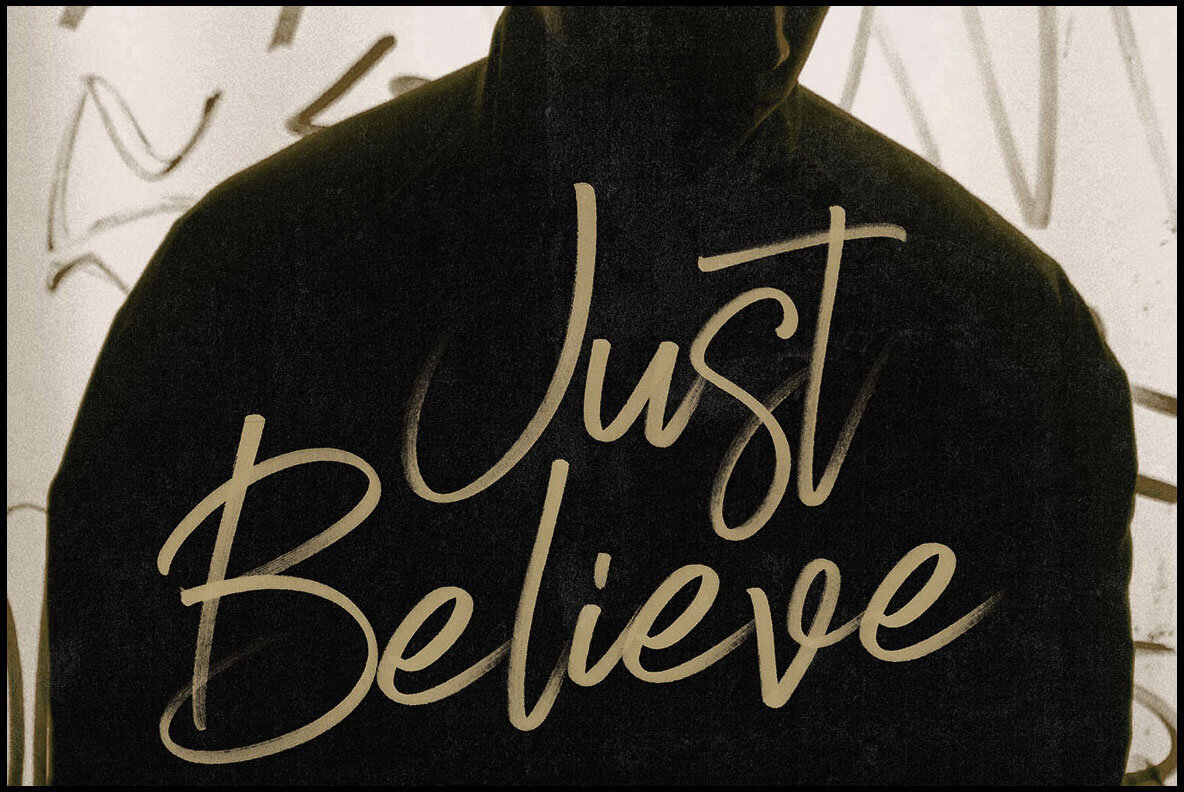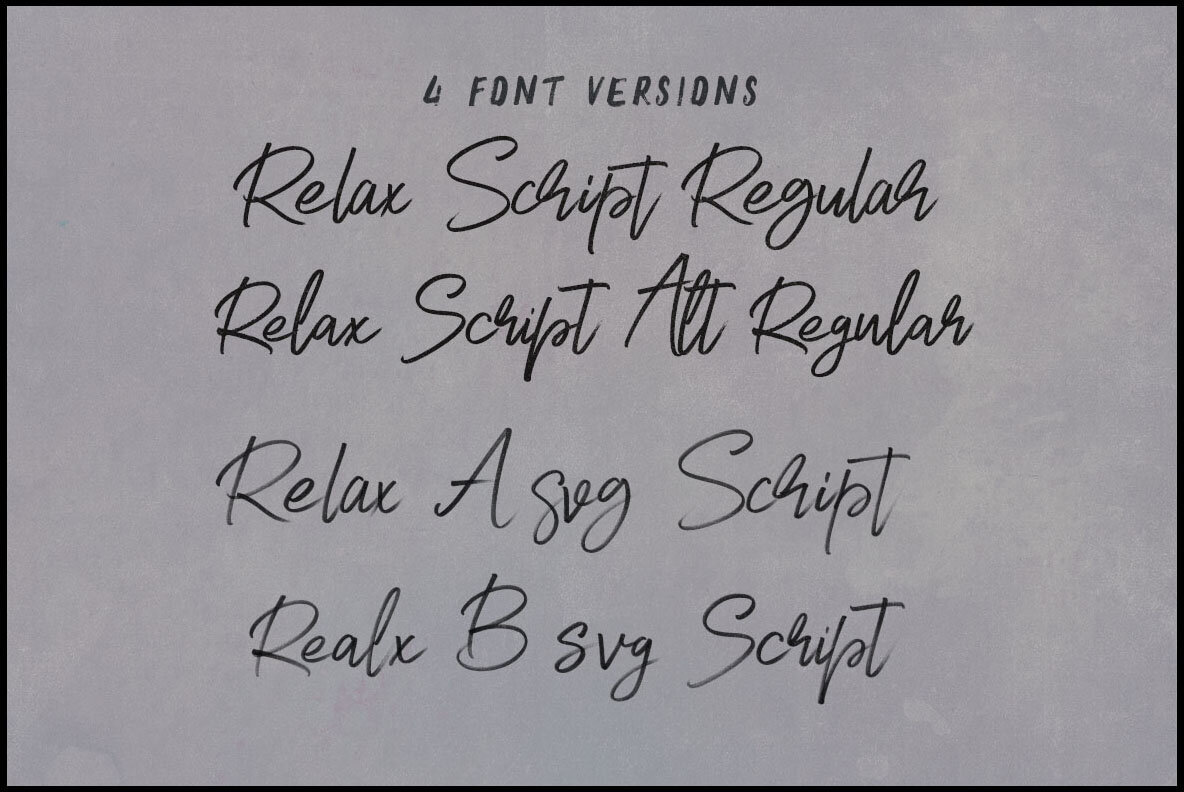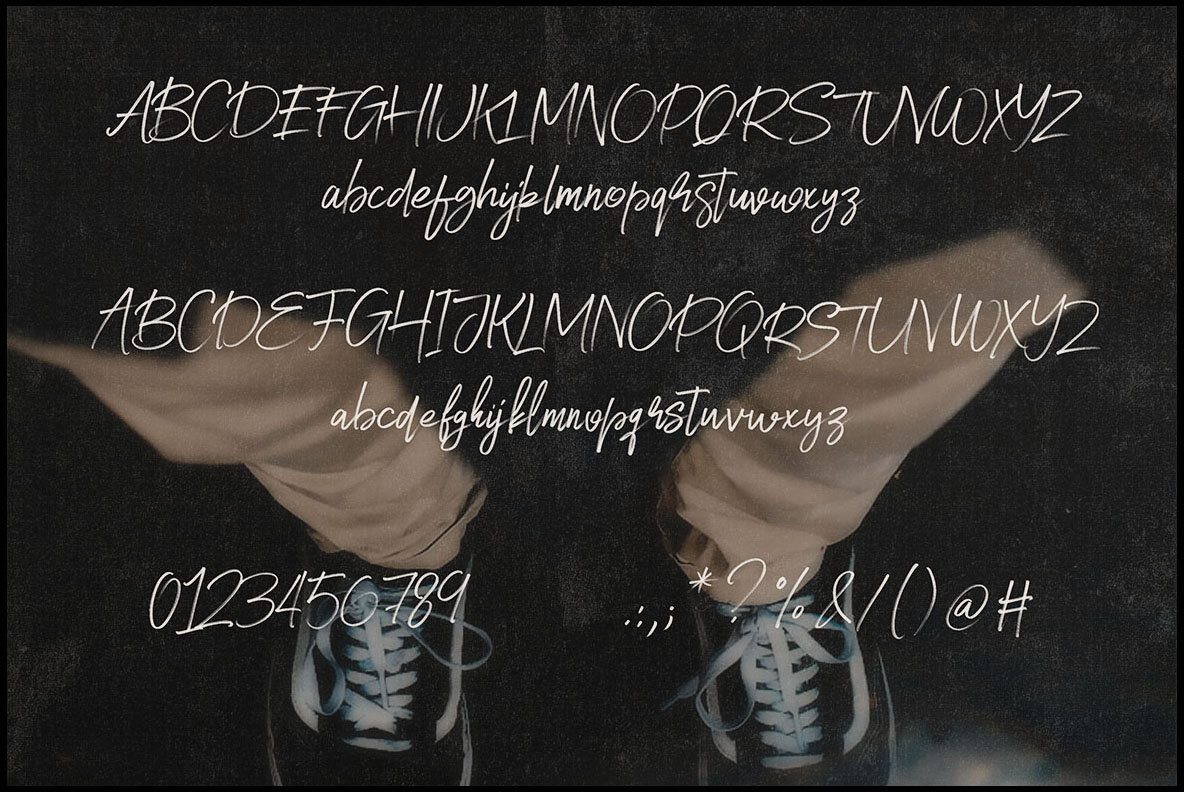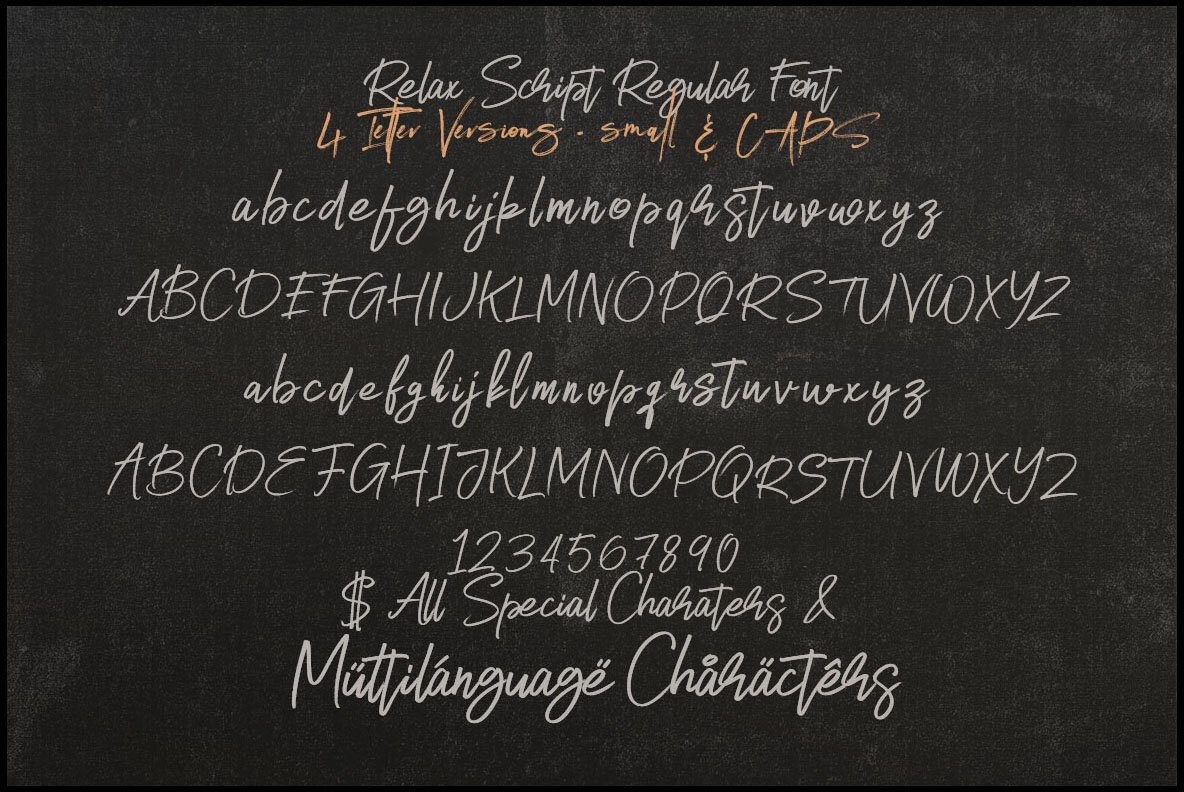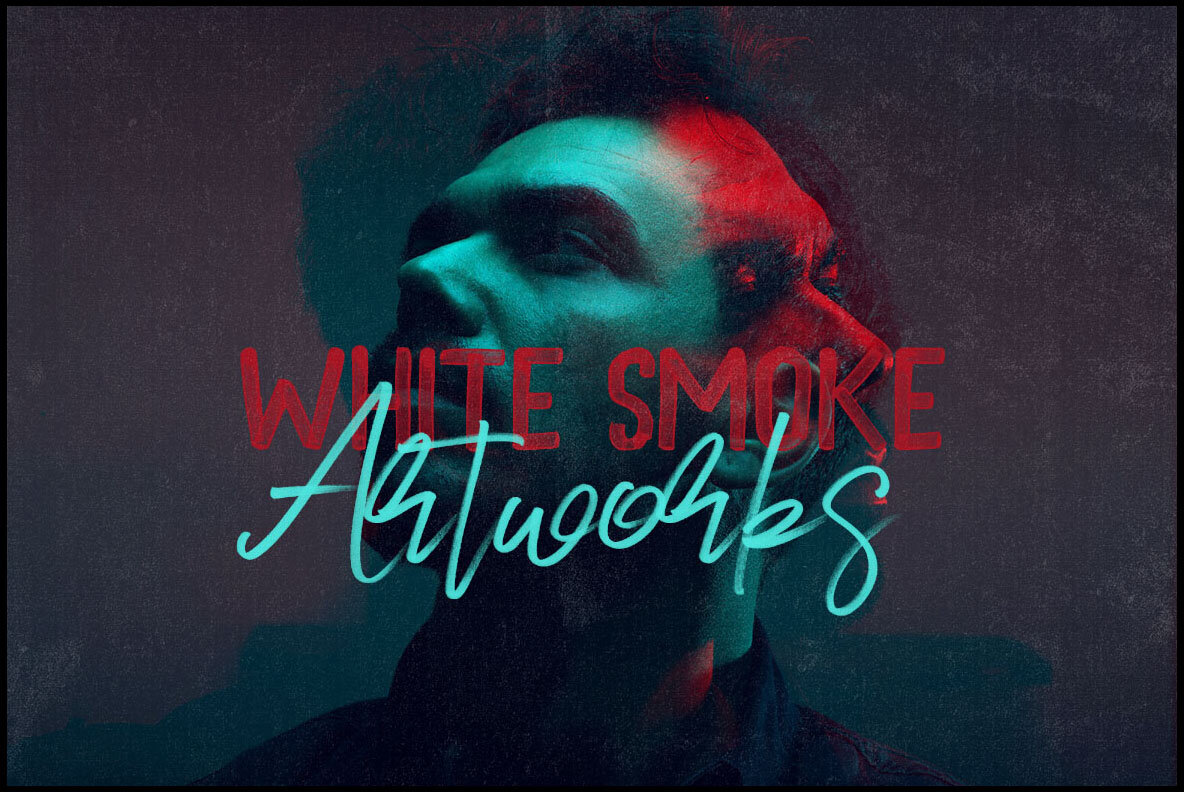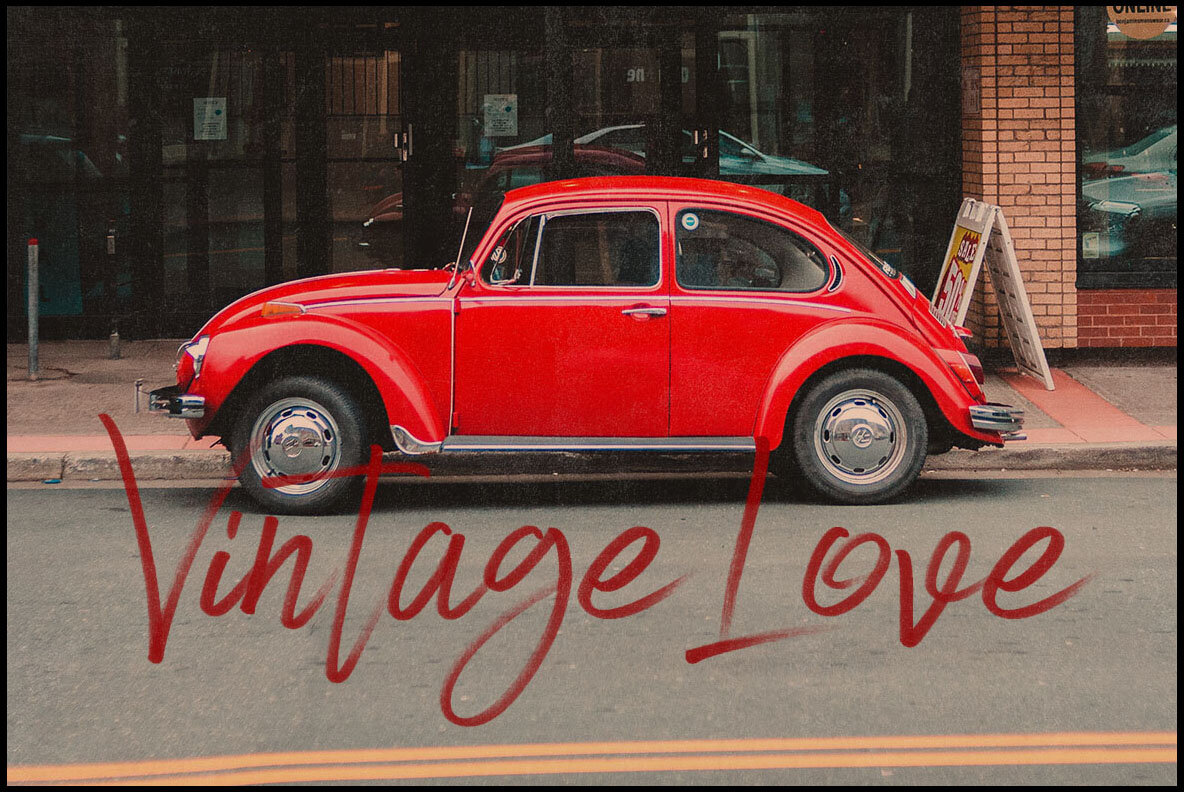
Relax Font
Relax Regular
Relax alt
Relax is a marker and grunge style script font ideal for adding a unique touch to your new projects. It is perfect for grunge-inspired or artistic designs, providing a raw and expressive character to your creations.Relax: Grunge Style Script Font by Peter Olexa